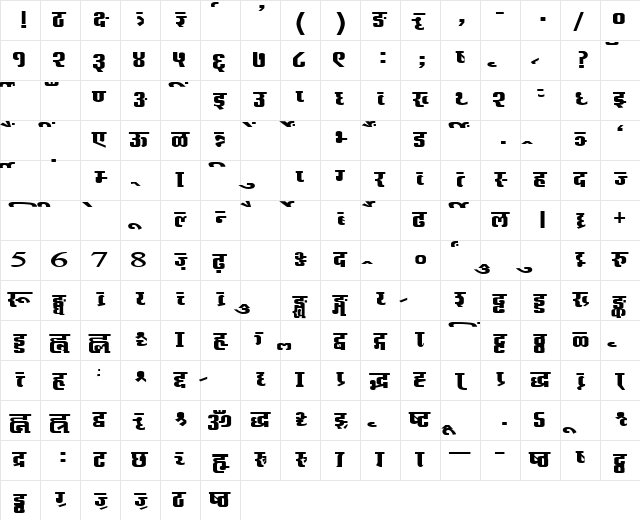
AkrutiDevAkshardhara Bold
AkrutiDevAkshardhara Family
Design Context for AkrutiDevAkshardhara
AkrutiDevAkshardhara is a composed and adaptable typeface that performs quietly and consistently across a wide range of design contexts. Its bold stroke weight gives it real presence on the page.